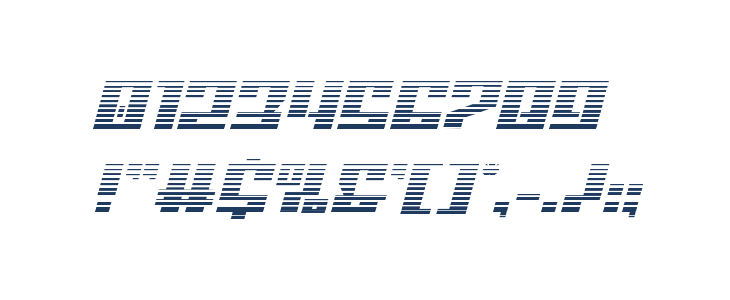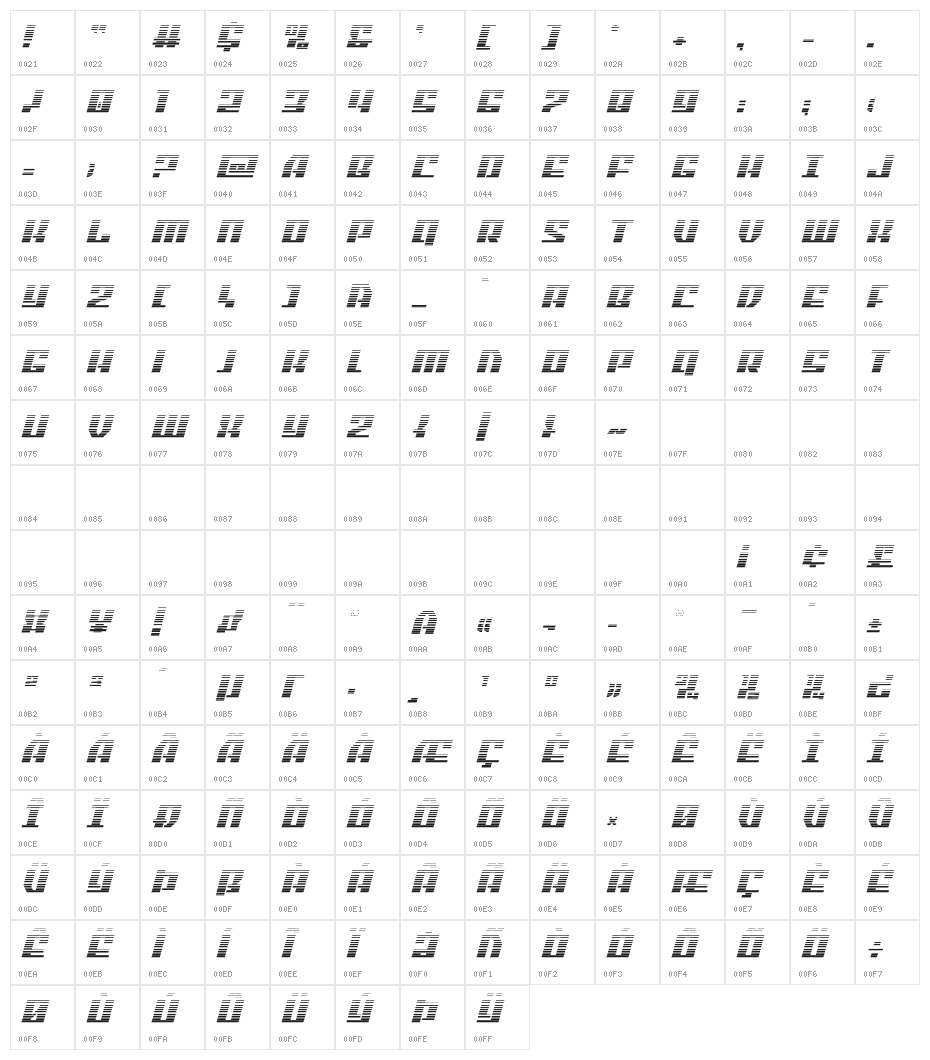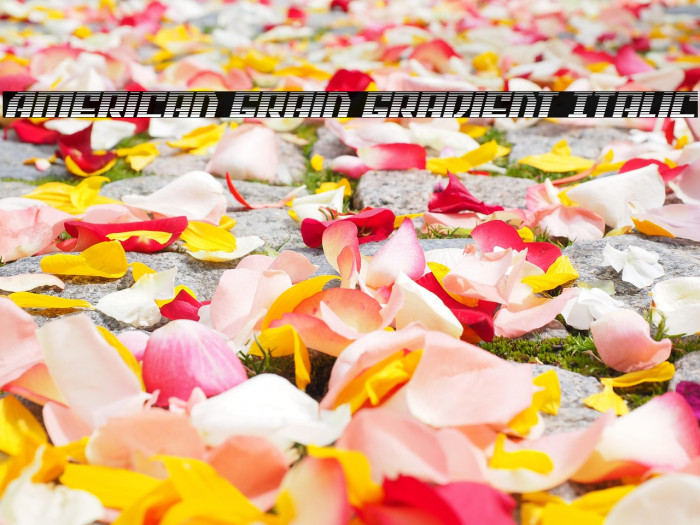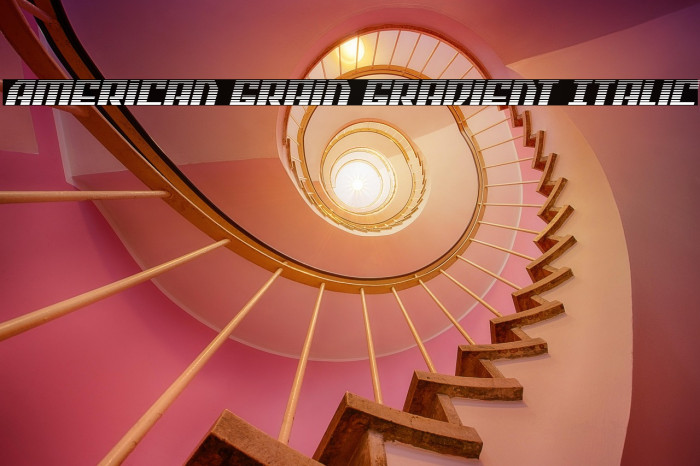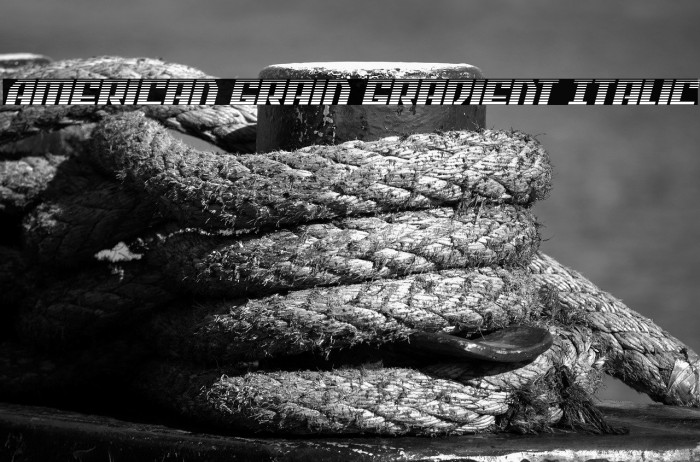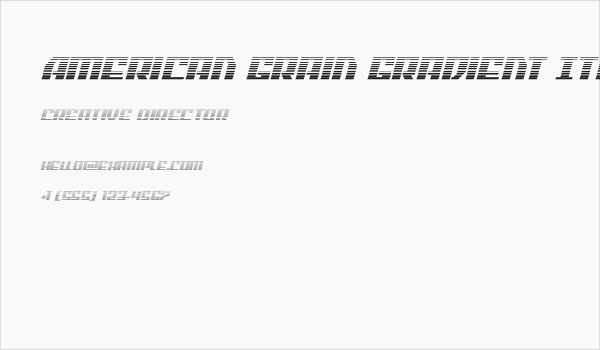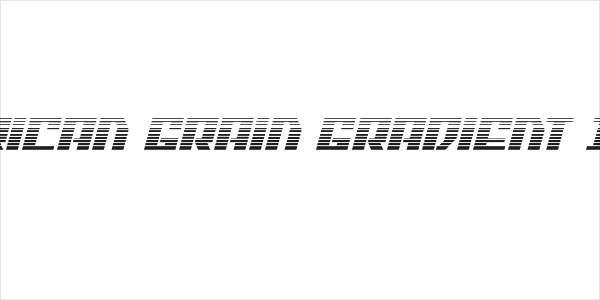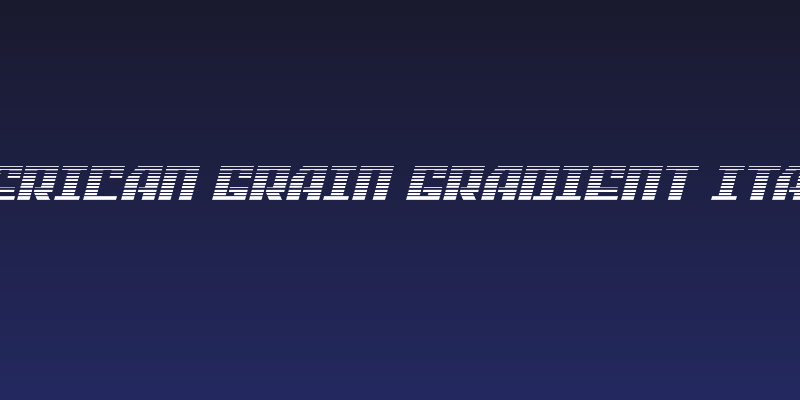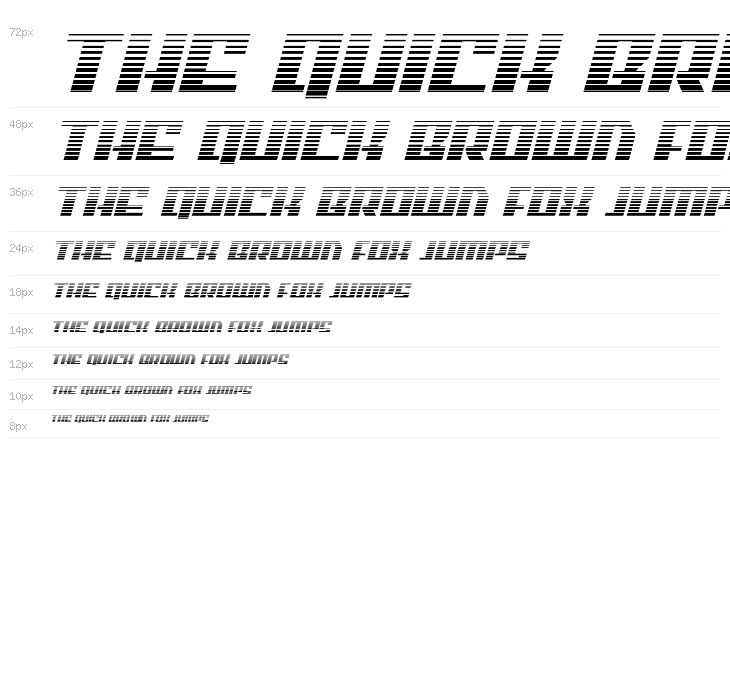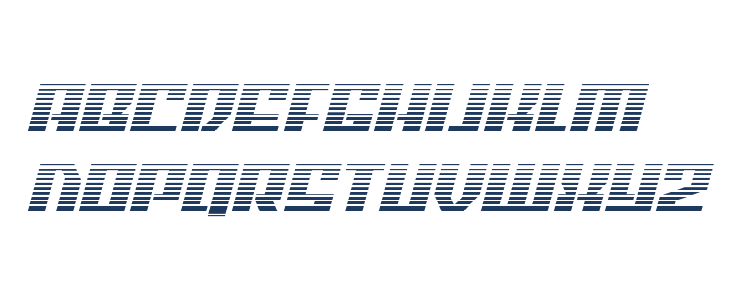
American Grain Gradient Italic Font
American Grain Gradient Italic Description
This font features a bold, italicized design with a distinctive striped pattern running horizontally across each character. The lines create a sense of movement and energy, making it ideal for dynamic and modern design projects. The uppercase and lowercase letters maintain a consistent style, with sharp angles and clean edges. The numbers and special characters follow the same aesthetic, ensuring uniformity across all text elements. This font's unique style is eye-catching and memorable, perfect for making a statement.